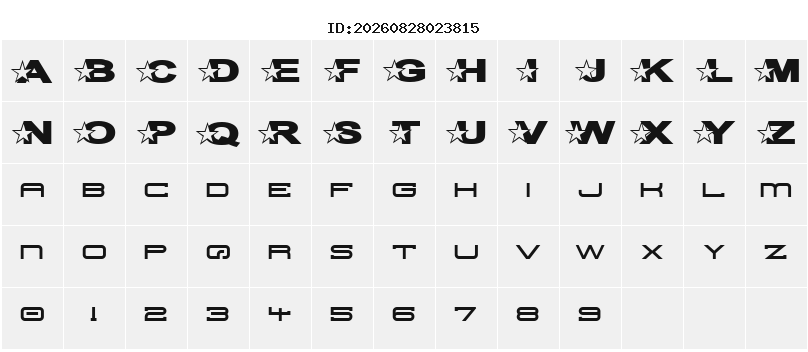
Troglodyte Pop Preview
• Font Name: Troglodyte Pop
• Full Font Name: Troglodyte Pop
• Designer: Graham Meade
About Troglodyte Pop.ttf
Troglodyte Pop.ttf is a modern, elegant sans-serif font designed for ultimate readability and visual harmony. Perfect for branding, headlines, web design, and print materials.